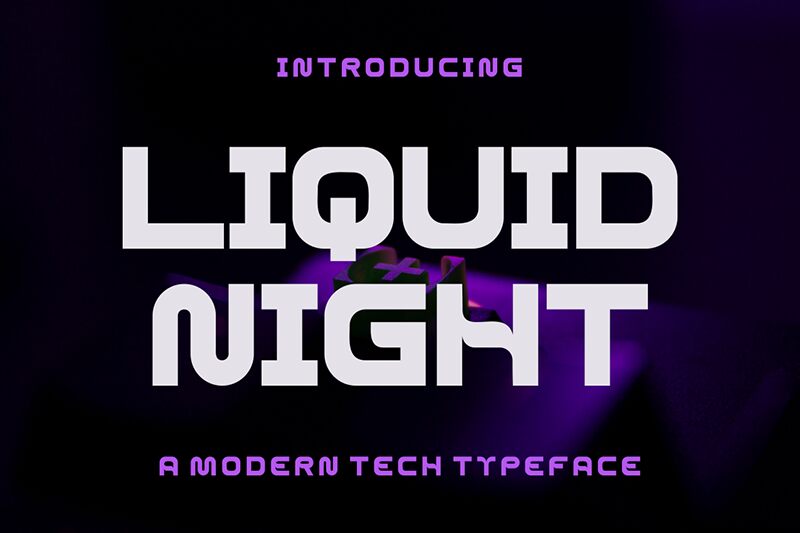
LIQUID NIGHT
Liquid Night font by Gilang Ternadho of Maikohatta is an expanded bold display that combines geometrical structure and modern minimalist style. This techno font feels industrial and modular at its core, merging this personality with clean lines and a striking retro feel reminiscent of mid-20th-century industrial design.